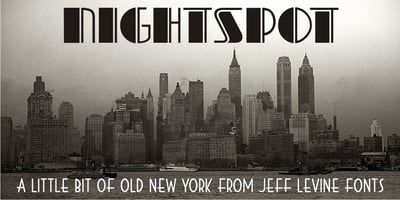
Nightspot JNL
Nightspot JNL font
Nightspot JNL Font Family was designed by Jeff Levine and published by Jeff Levine. Nightspot JNL contains 1 styles and family package options. Nightspot JNL was modeled from one of many display alphabets created by the late sign painter and lettering expert Alf Becker. His work has graced the pages of Signs of the Times® magazine for decades. Special thanks to Tod Swormstedt of the American Sign Museum and ST Publications, Inc. in Cincinnati, Ohio for providing the source material for this typeface.